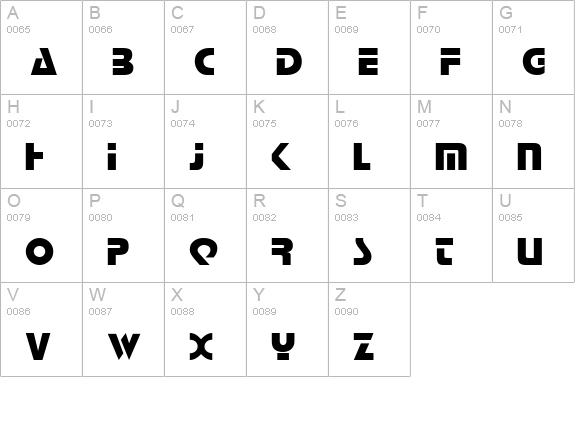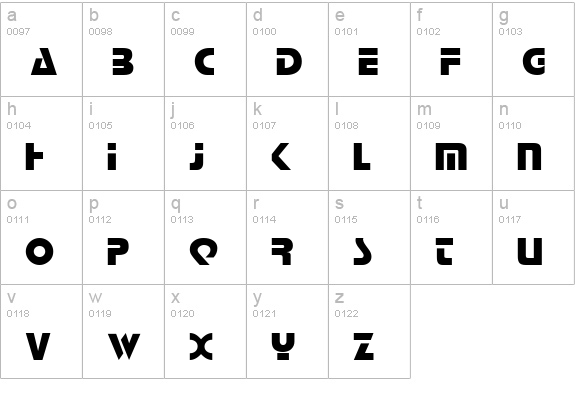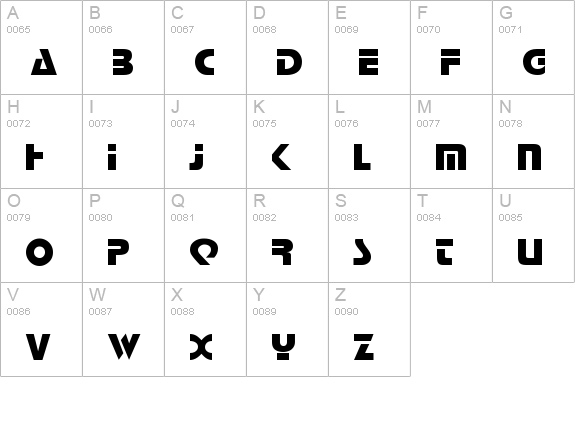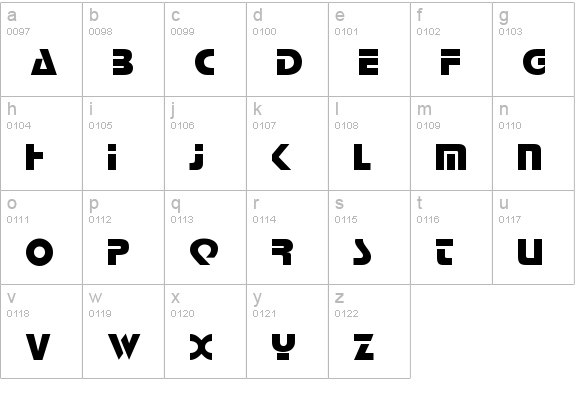
Scottsdale Normal Font Details
Scottsdale Normal is the standard, neutral variant in the Scottsdale typeface family \xE2\x80\x94 well suited to general body text, paragraphs, and standard typographic work.
Introducing Scottsdale Normal, an exquisite and versatile font that effortlessly combines elegance with modern simplicity. Designed with utmost precision, this typeface showcases clean lines and a timeless appeal that is perfect for a wide range of design projects. Scottsdale Normal exudes a sense of sophistication and professionalism, making it an ideal choice for branding materials, logo designs, invitations, and editorial layouts. Its balanced letterforms and carefully crafted details add a touch of refinement to any creative endeavor. But what sets Scottsdale Normal apart is not only its exceptional design, but also its accessibility. This font is available for free download at FontsMarket.com, allowing designers, creators, and enthusiasts alike to harness its beauty without any financial constraints. With Scottsdale Normal, you can effortlessly elevate your designs while enjoying the freedom and flexibility that comes with a freely available font. Whether you're working on personal or commercial projects, this font will enhance your creations and add a touch of sophistication that is sure to captivate your audience. So why wait? Head over to FontsMarket.com now and download Scottsdale Normal, the perfect blend of elegance and accessibility. Unleash your creativity and let this font be the secret ingredient that takes your designs to new heights.